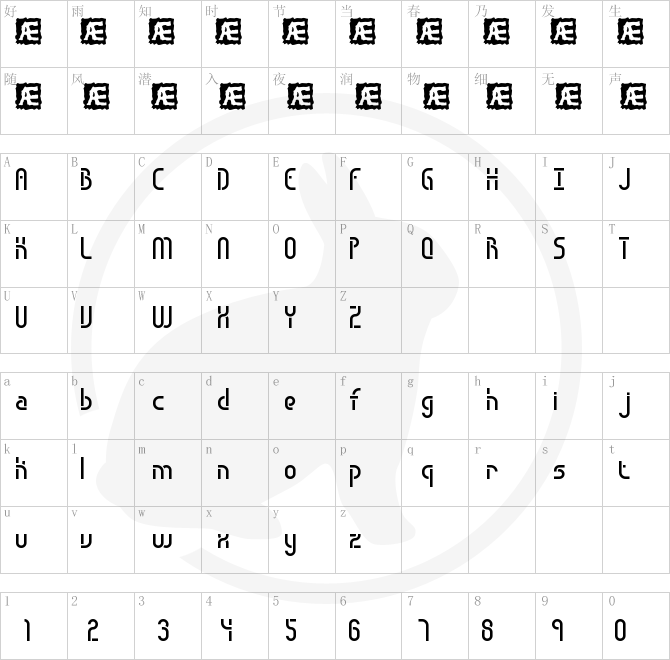
- Font Name:Obstacle BRK
Obstacle-BRK-copy-1-.ttf is a very beautiful artistic font, Obstacle-BRK-copy-1-.ttf is widely used in the design and printing of various books and pictures,Obstacle-BRK-copy-1-.ttf has a strong visual impact,Obstacle-BRK-copy-1-.ttf is a commonly used font in newspapers, magazines and books, and is used in posters, e-commerce Poster design, store design, logo design, font design and other fields.Obstacle-BRK-copy-1-.